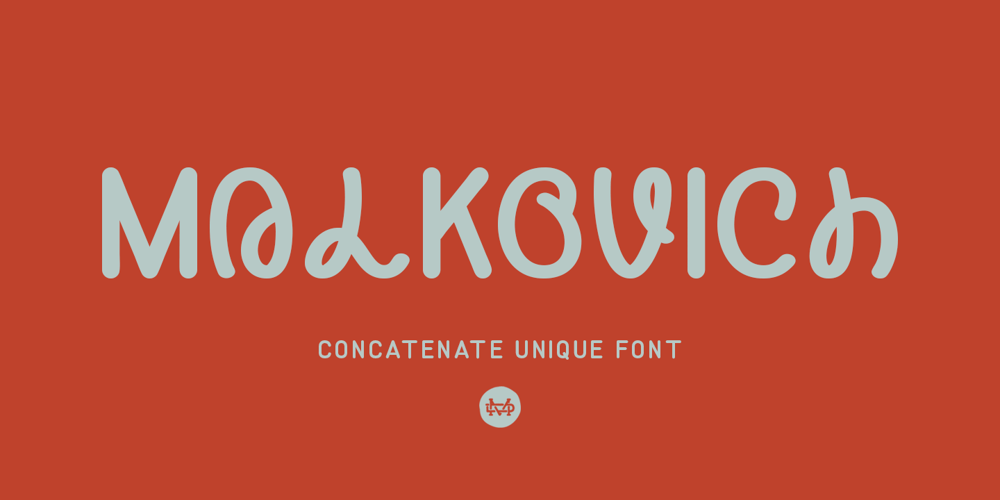
Malkovich Font Family was designed by madededuk and published by madeDeduk. Malkovich contains 1 styles and family package options. Malkovich designed to become a concatenate unique font, this font has the potential to bring each of your creative ideas. Combine with standard and special alternative glyphs so you can create a lot with layouts and compositions. Malkovich brings a touch of custom typography to logos, websites, social media quotes, wedding branding, and more.Whats Included ? Uppercase & Lowercase Number & Symbol International Glyphs Multilingual supportFeature UPPERCASE Lowercase Number & Symbol International Glyphs Alternative Thank you so much for checking out my shop, and please get in touch if you have any questions!